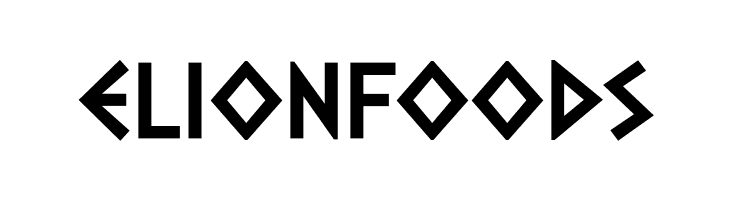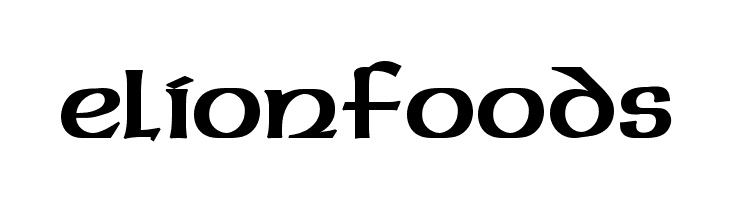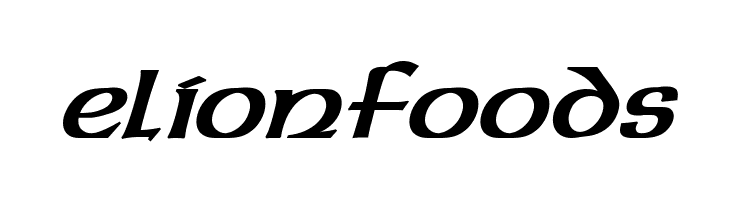
A bold, geometric typeface with strong, angular lines and a modern aesthetic.
A bold, italicized font with a modern, dynamic style and tight character spacing.
A bold, gothic-inspired font with sharp, angular edges and a modern twist.
A bold, dynamic font with playful, irregular forms and high contrast.
A bold, decorative font with floral elements integrated into the letterforms.
A bold, geometric font with sharp angles and a futuristic aesthetic.
A bold, uncial-style font with sharp serifs and a medieval yet modern aesthetic.
A bold, italicized uncial-inspired font with a medieval and calligraphic style.